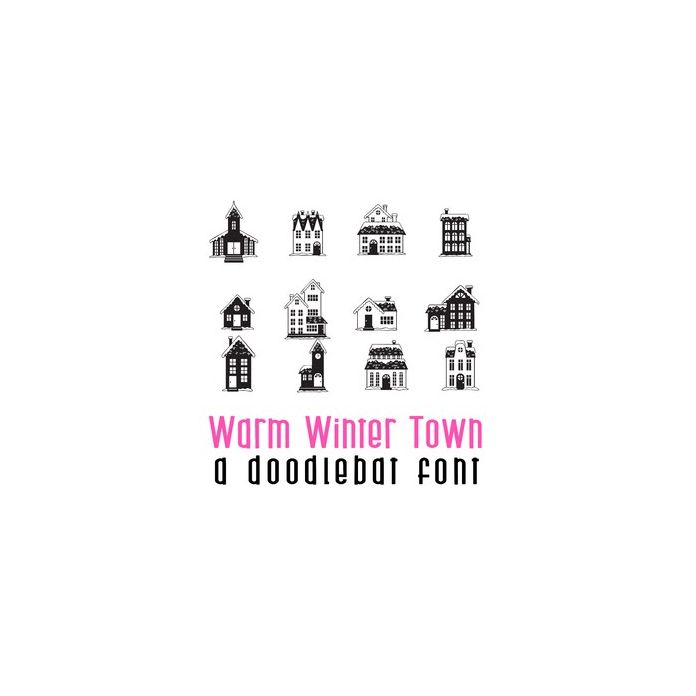
This adorable full-color doodlebat font features 26 snow covered village homes. Perfect for cards, crafts, gifts, decor, scrapbook pages, planner stickers, and more!